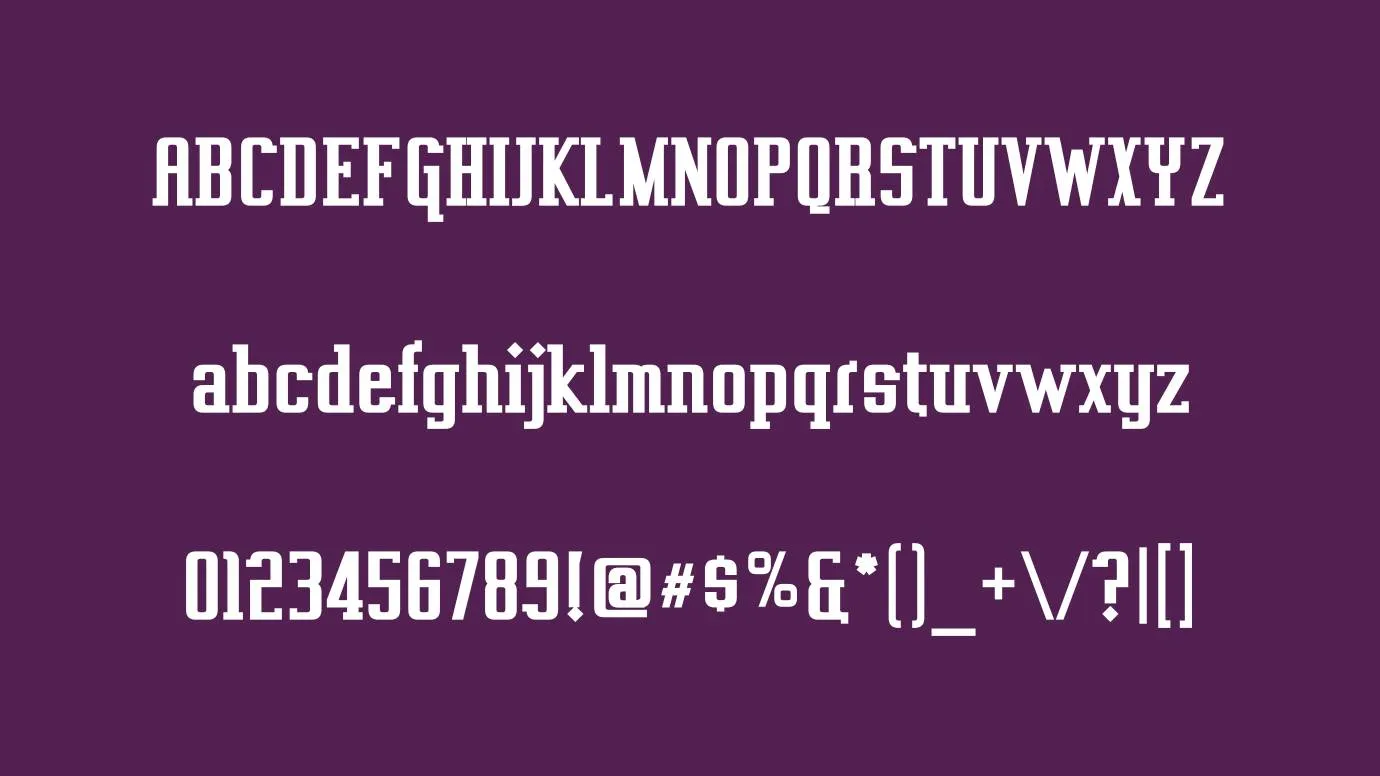
Vahika Font is a very unique typeface that was designed by Ray Larabie and manufactured by Typodermic Fonts. This interesting font was first launched in 2006.
It has four different styles which makes it perfect for all types of personal and commercial projects. It has high readability due to its neat and clean look.
Vahika Font